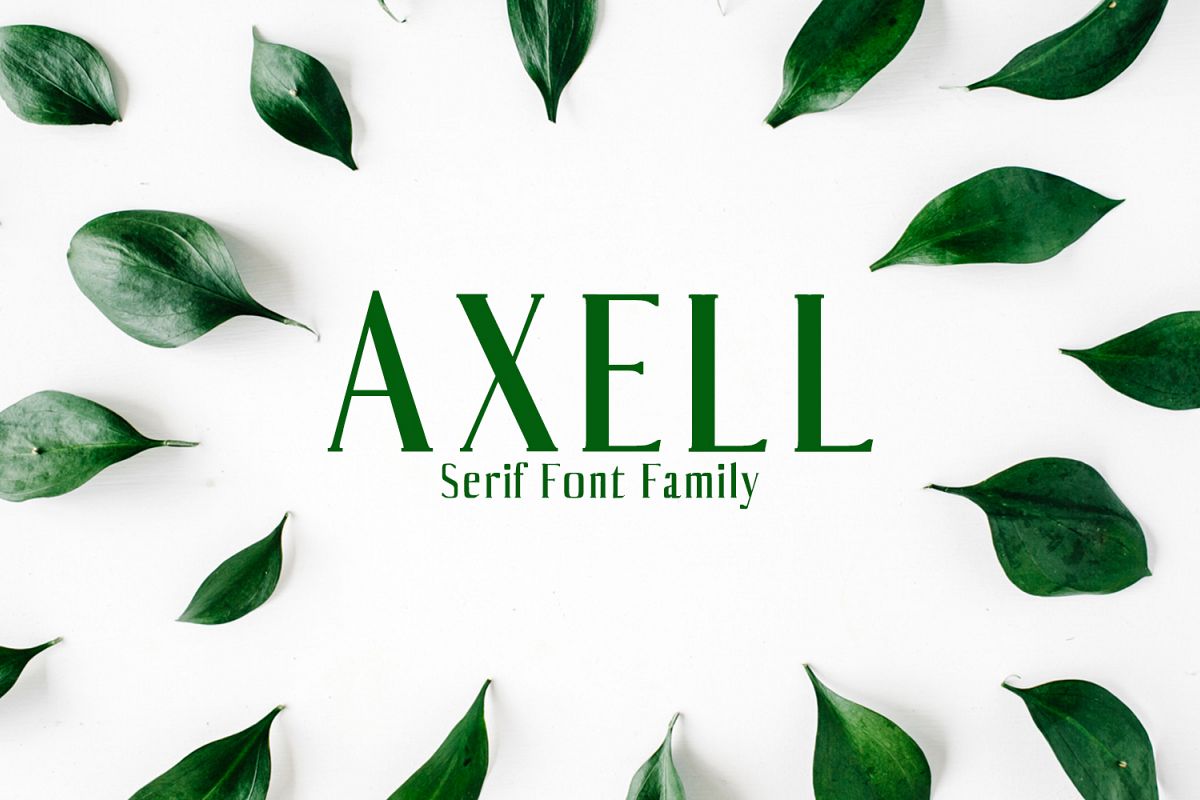
Axell Serif Font Family
Axell Serif Font Family is a minimal simple serif font family, which contains 4 weights with 280 unique glyphs and supports many different languages. Axell looks gorgeous in all caps with a wide-set spacing if you want to try a classy look, or beautiful on its own in capital and lowercase letters for something completely timeless. It is great to use on logos, titles, web layouts, advertising, invitations, books, packaging, presentations, headlines, lettering, posters, branding, quotes, magazines headings, web layouts, and nearly any creative design.
• Font Weight: Regular, Medium, Distorted and Bold
Axell Font Features:
• Uppercase Multilingual Letters
• Lowercase Multilingual Letters
• Non English Characters ( Latin Supplement + Latin Extended A)